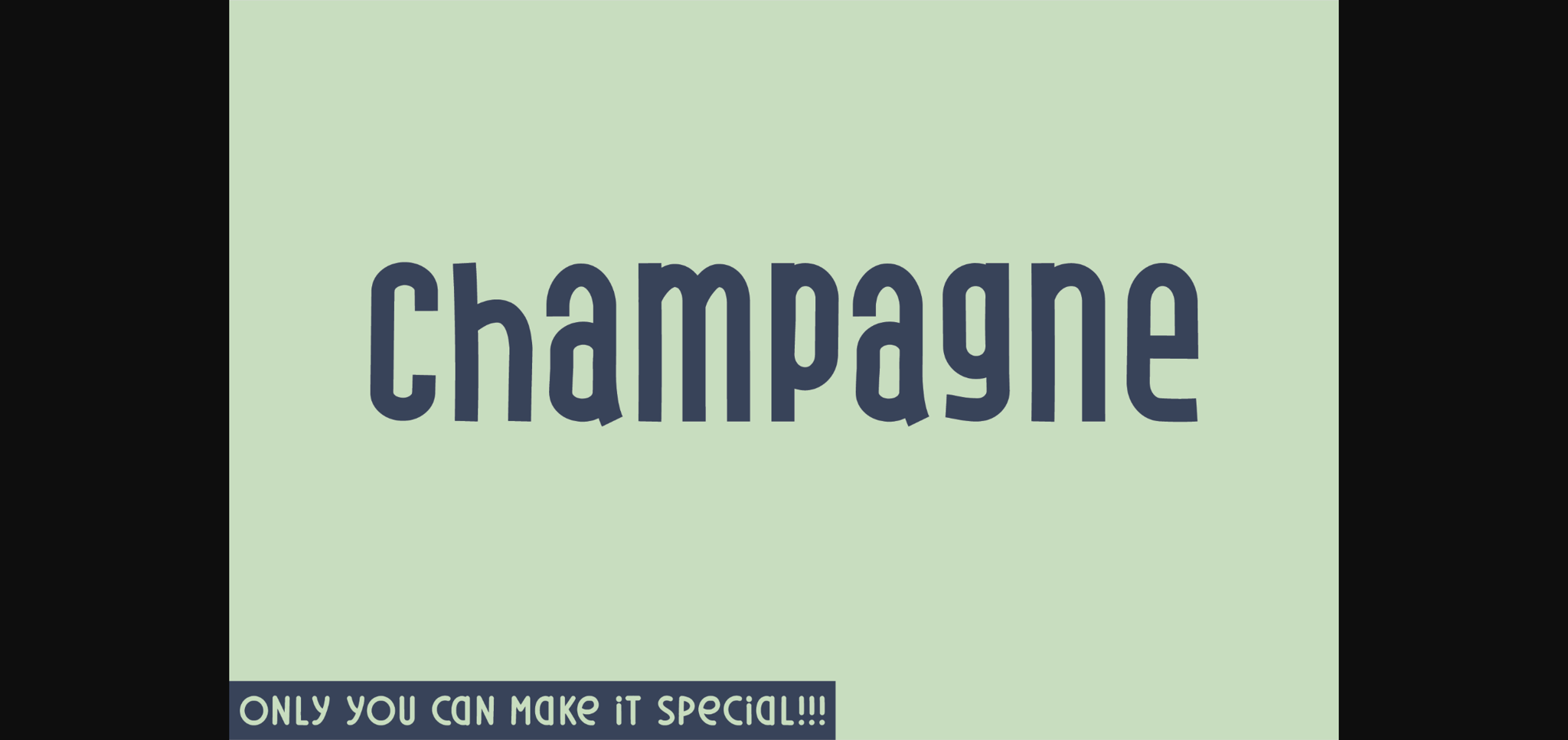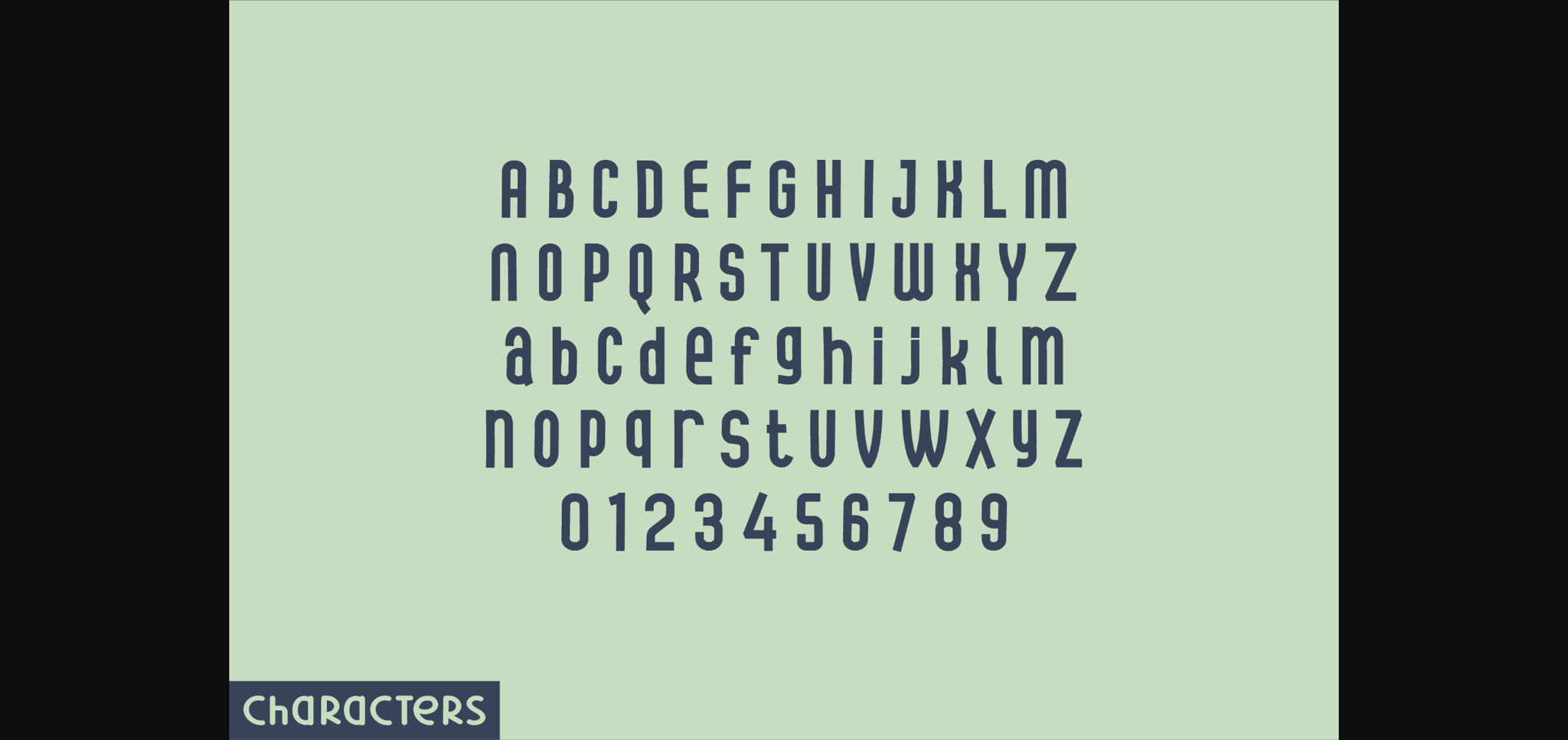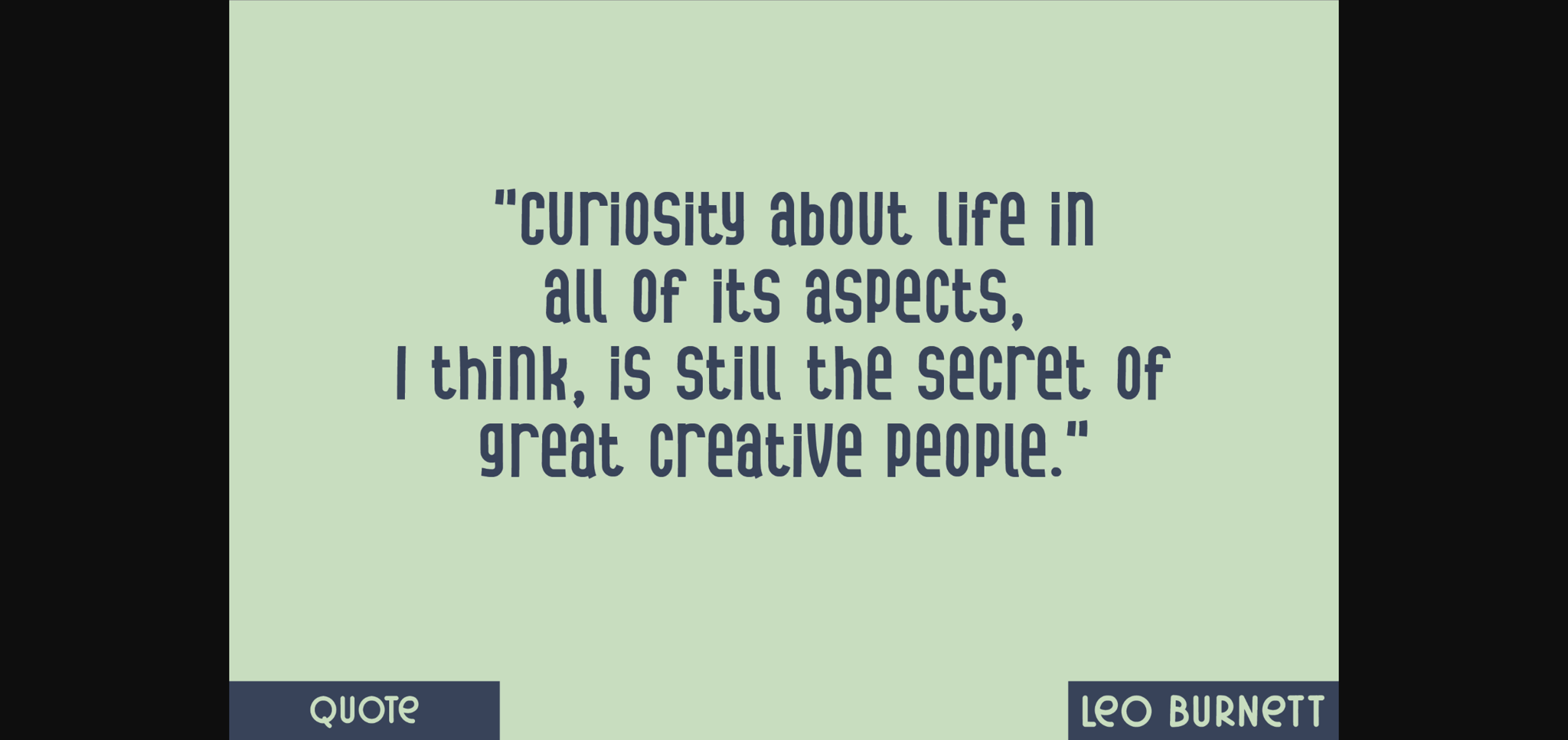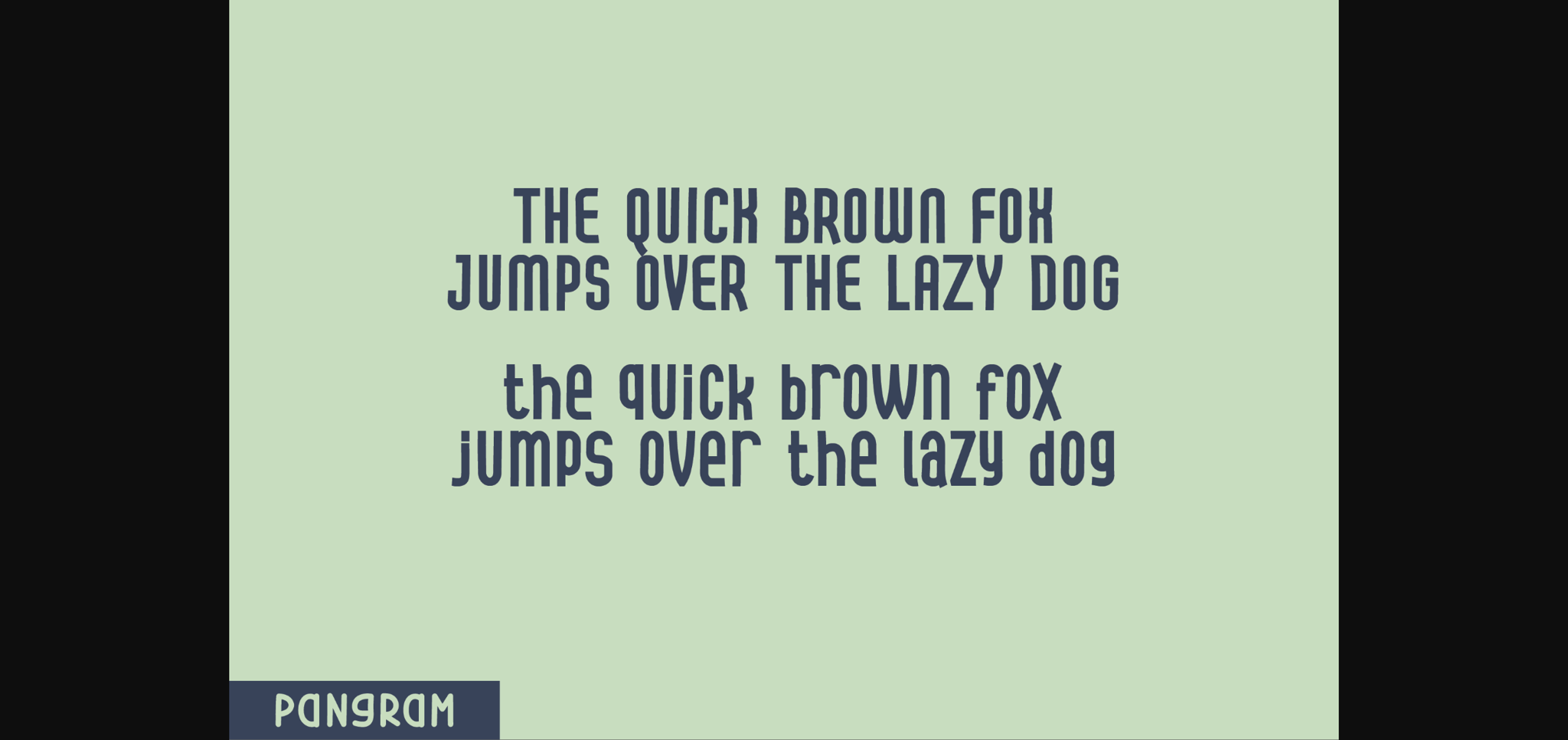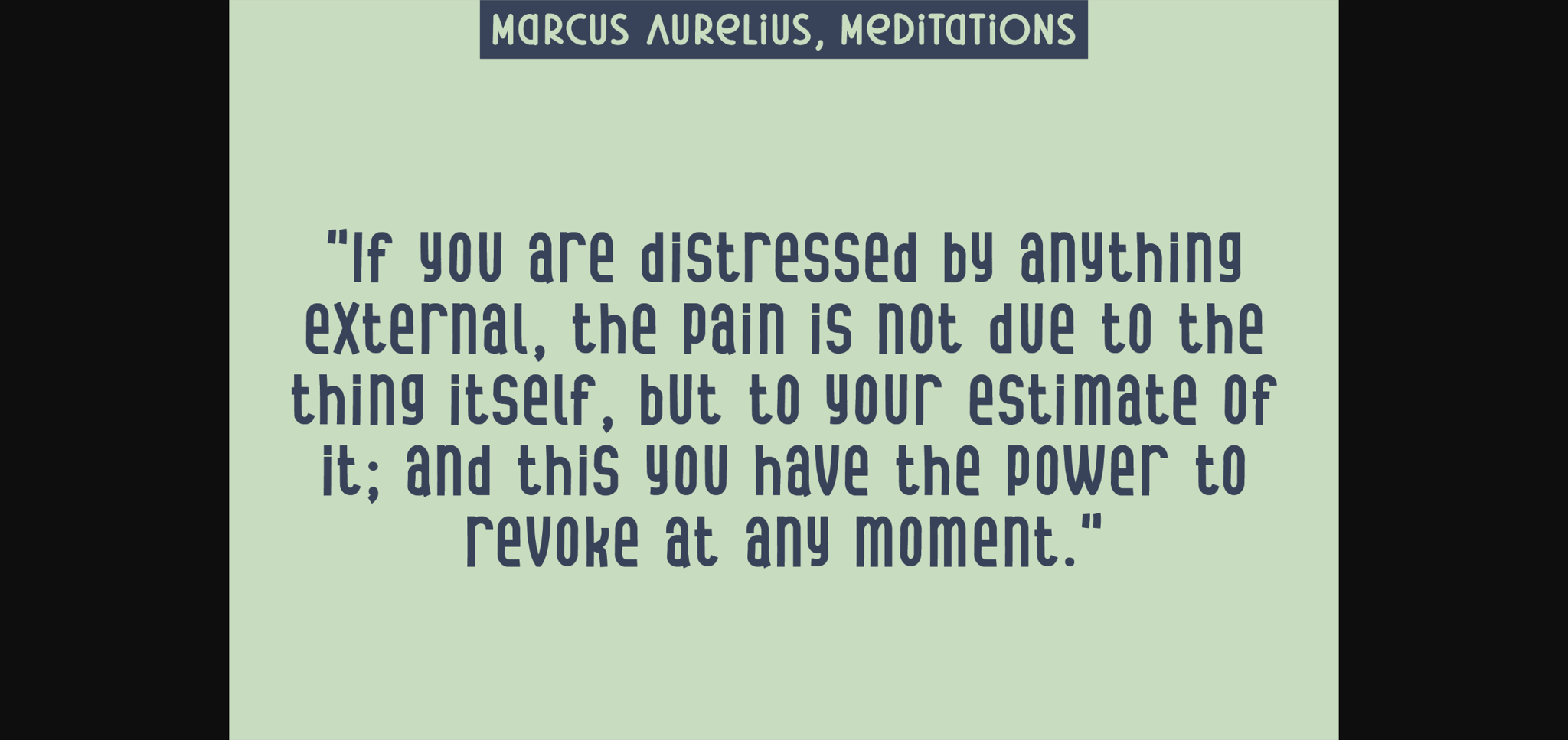
Champagne Font
About Champagne Font
Introducing the Champagne font, a visually striking typeface meticulously crafted for display applications. Its sans serif style breaks the mold by delivering an unorthodox form. Each character tip showcases a conventional shape, adding an unexpected dose of intrigue and character to your visuals. Its robust contours stand steadfast, yet embody a profound uniqueness that commands attention. Ideal for designs exuding a bold and distinctive message, the Champagne font transforms your words into an aesthetic, unforgettable statement.